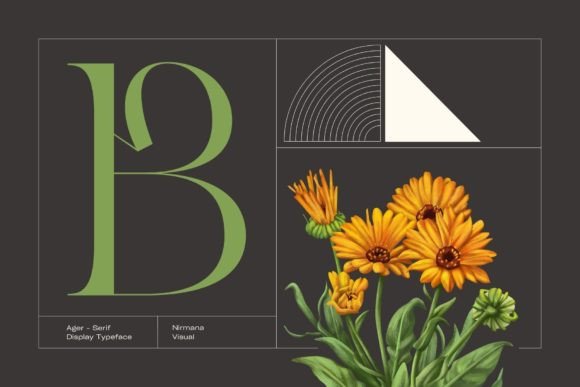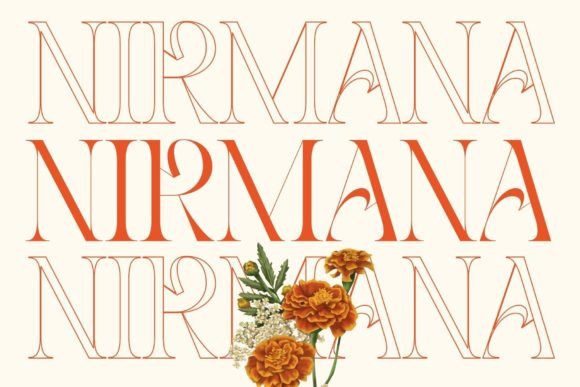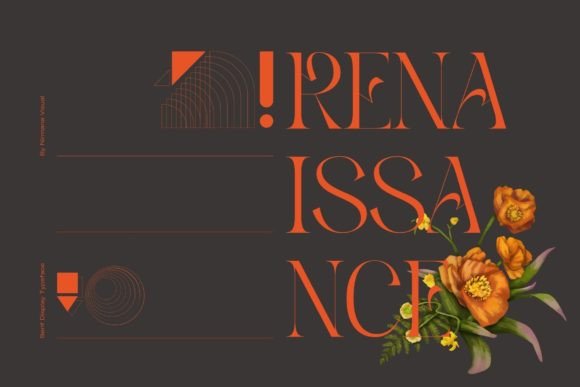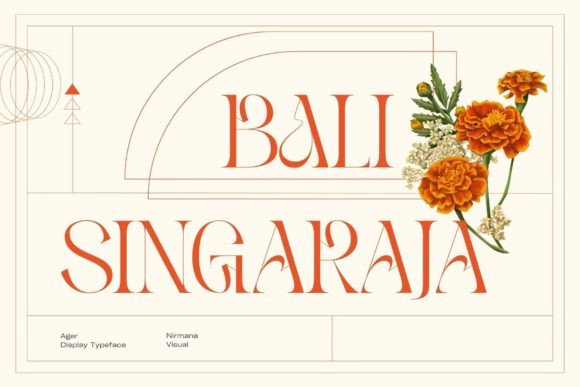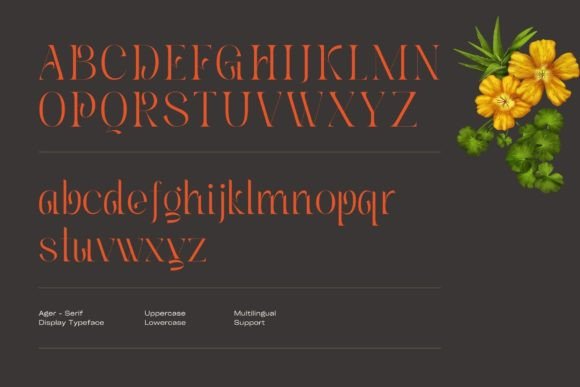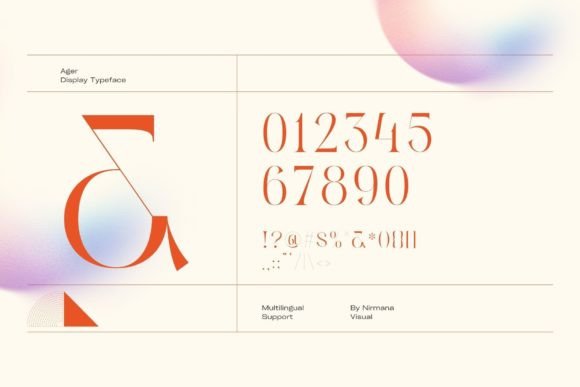
Ager Font: A Stunning Typeface Inspired by Art Nouveau Design Era
In the world of typography, few fonts have managed to capture the essence of the Art Nouveau design era as beautifully as Ager Font. This stunning typeface is a masterful blend of elegance, sophistication, and creativity, making it an ideal choice for designers and crafters looking to add a touch of classic charm to their projects. In this article, we’ll delve into the world of Ager Font, exploring its design inspiration, features, and uses.
Ager Font: Inspired by Art Nouveau
Ager Font is a direct descendant of the Art Nouveau design era, a style that emerged in the late 19th century and flourished until the early 20th century. Characterized by its sinuous, organic lines, and flowing curves, Art Nouveau influenced various art forms, including architecture, decorative arts, and typography. Ager Font’s design takes cues from this iconic style, boasting intricate details, elegant lines, and a sense of refinement.
Typographic Harmony
One of the standout features of Ager Font is its typographic harmony. This font offers a beautiful balance of letterforms, making it perfect for a wide range of design projects, including:
- Logos & branding: Ager Font’s elegant design makes it an excellent choice for logos, ensuring your brand stands out with sophistication and style.
- Social media posts: Add a touch of classic charm to your social media posts, making them more engaging and visually appealing.
- Advertisements & product designs: Ager Font’s refined design is ideal for advertisements and product designs, helping you create stunning visuals that capture attention.
Design Features
Ager Font boasts a range of design features that make it a versatile and practical choice for designers and crafters:
- Multiple font weights: Ager Font comes in various font weights, allowing you to experiment with different styles and tones.
- Extensive character set: The font features an extensive character set, including uppercase and lowercase letters, numbers, and punctuation marks.
- Works well with multiple languages: Ager Font supports multiple languages, making it a great choice for international design projects.
Why Choose Ager Font?
- Unique design: Ager Font’s Art Nouveau-inspired design sets it apart from more common fonts, ensuring your designs stand out.
- Elegant and sophisticated: The font’s elegant lines and refined design make it perfect for projects requiring a touch of sophistication.
- Versatile: Ager Font’s range of design features and multiple font weights make it suitable for various design projects.
| Font Name | Ager Font |
| Author | Sigit Dwipa |
Ager Font is a stunning typeface that embodies the essence of the Art Nouveau design era. With its elegant design, typographic harmony, and range of features, it’s an ideal choice for designers and crafters looking to add a touch of classic charm to their projects. Whether you’re working on logos, social media posts, advertisements, or product designs, Ager Font is sure to impress. So why not give it a try and experience the beauty of Art Nouveau typography?